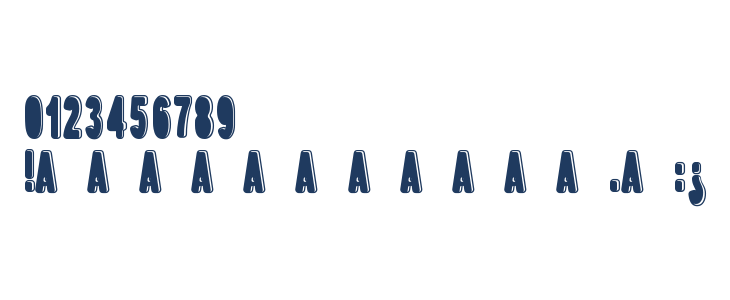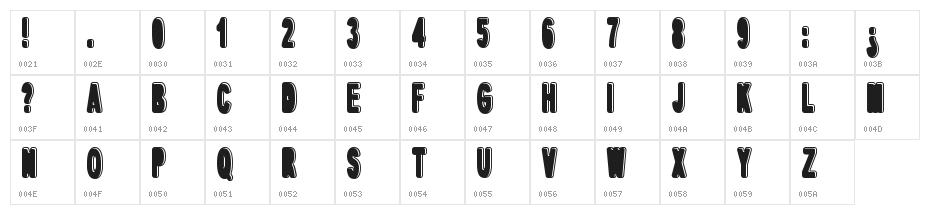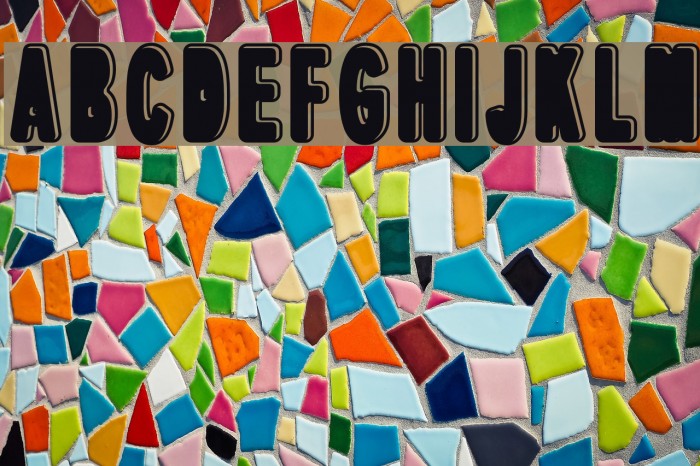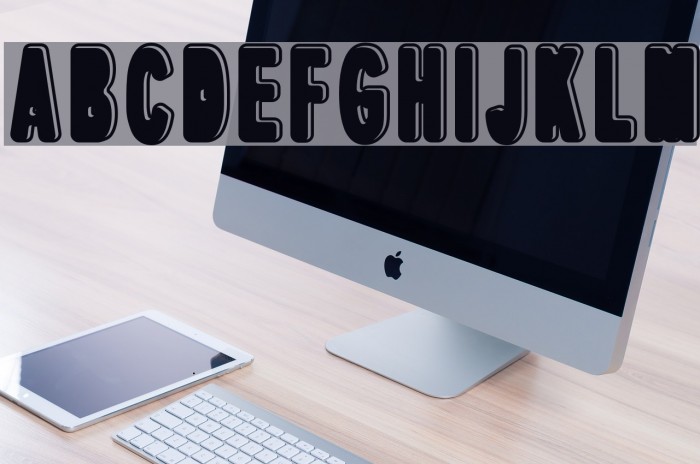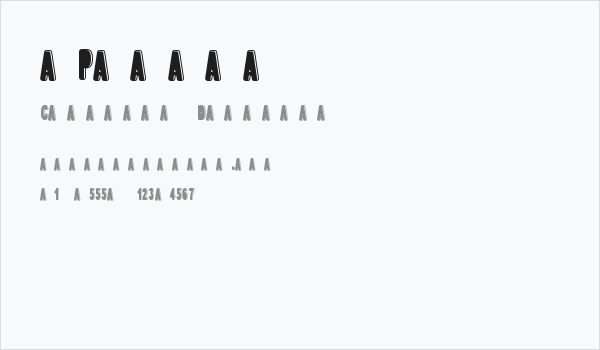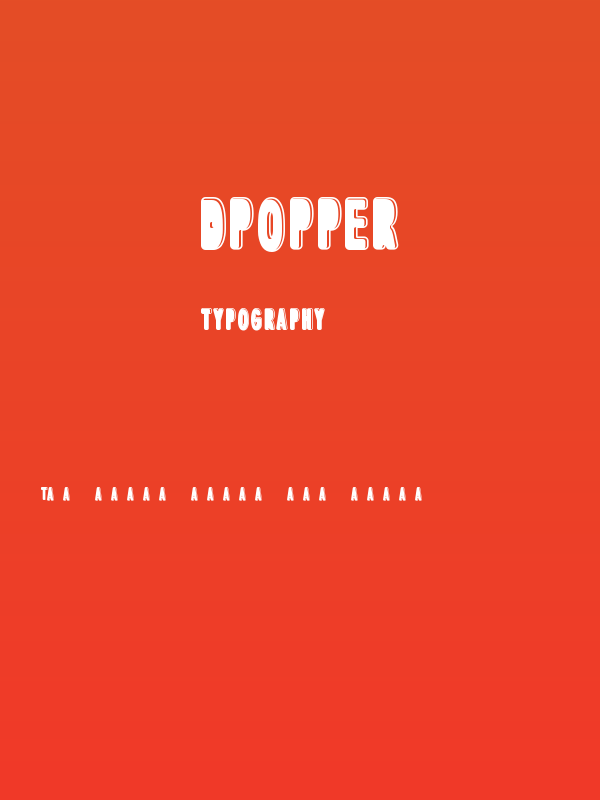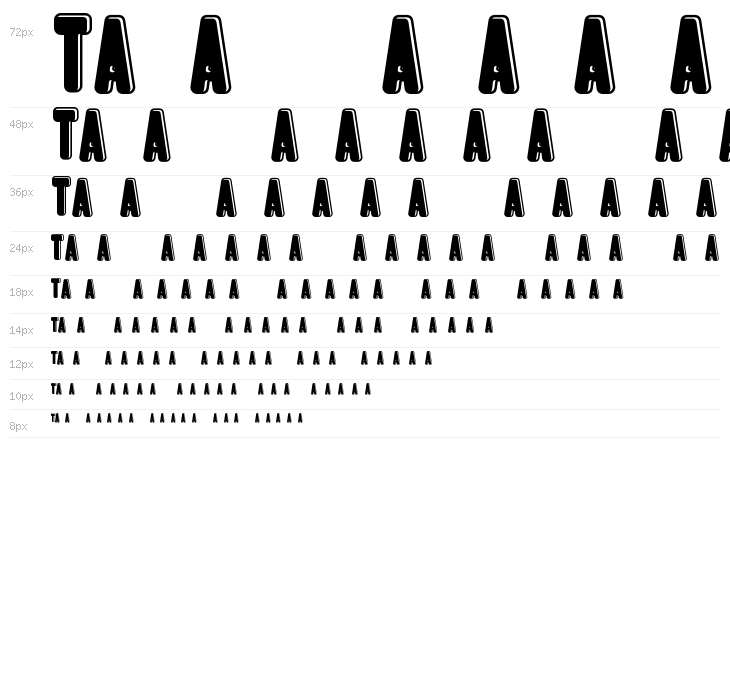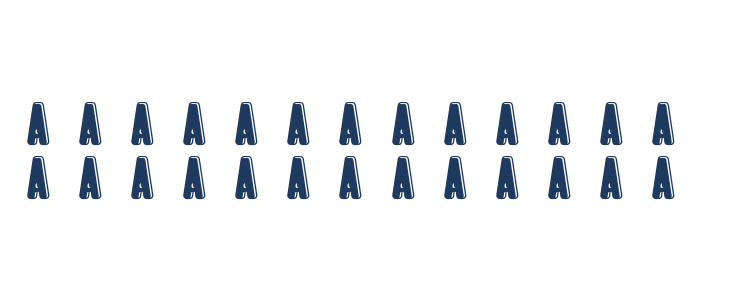
dPopper Font
dPopper Description
This font features a bold and playful design with a distinct bubble-like appearance. The characters are rounded and filled, creating a sense of depth and volume. The thick strokes and smooth curves give it a friendly and approachable look, making it ideal for eye-catching designs. The font maintains consistent weight throughout, with a slight emphasis on the rounded edges, enhancing its playful nature. The spacing between characters is tight, contributing to its compact and cohesive appearance. This font is perfect for projects that require a fun and engaging aesthetic.
Overall StylePlayful
Proposed ProjectsIdeal for children's books, playful branding, posters, and party invitations.